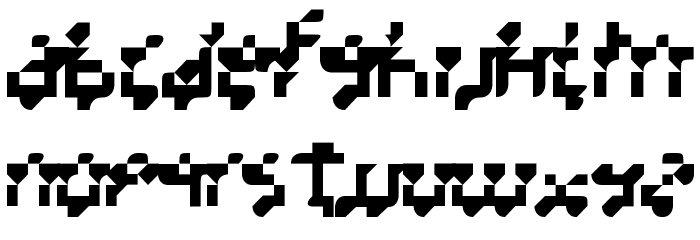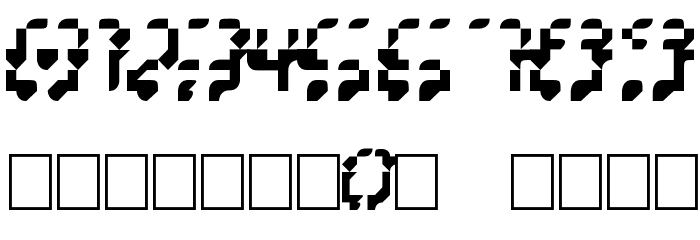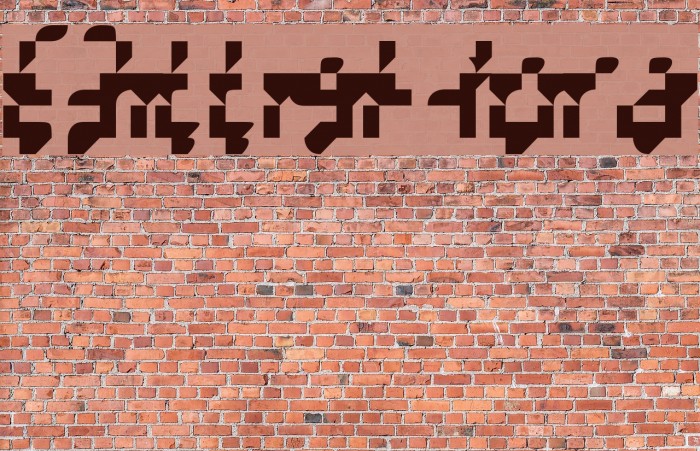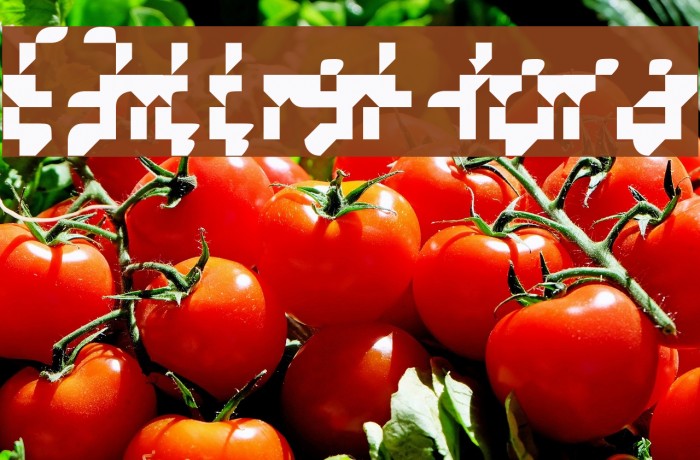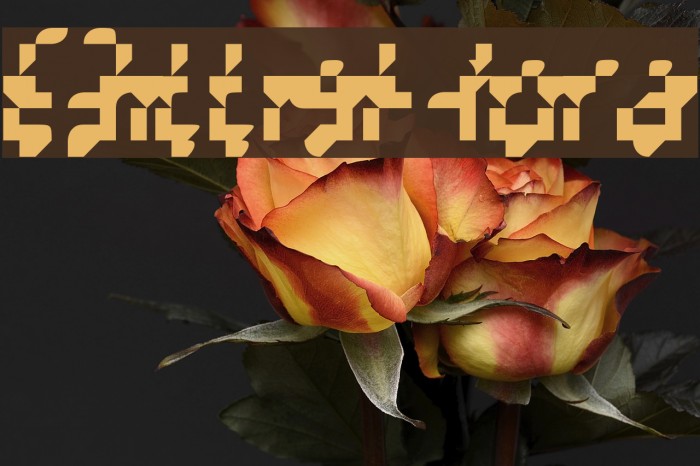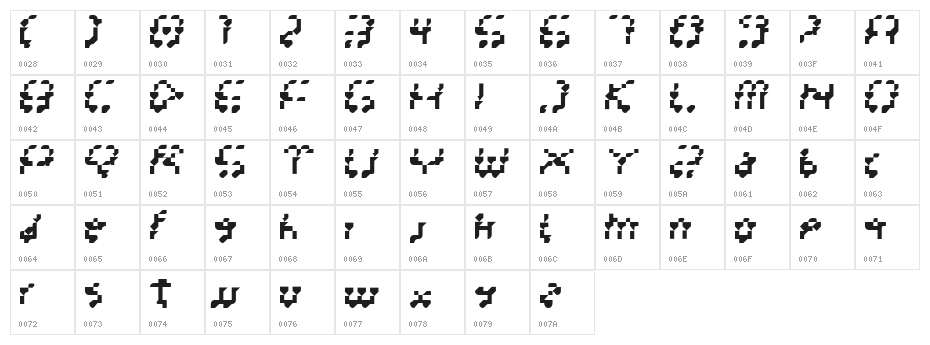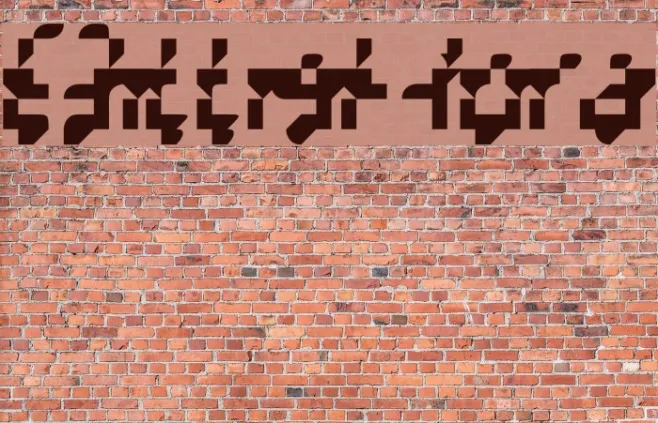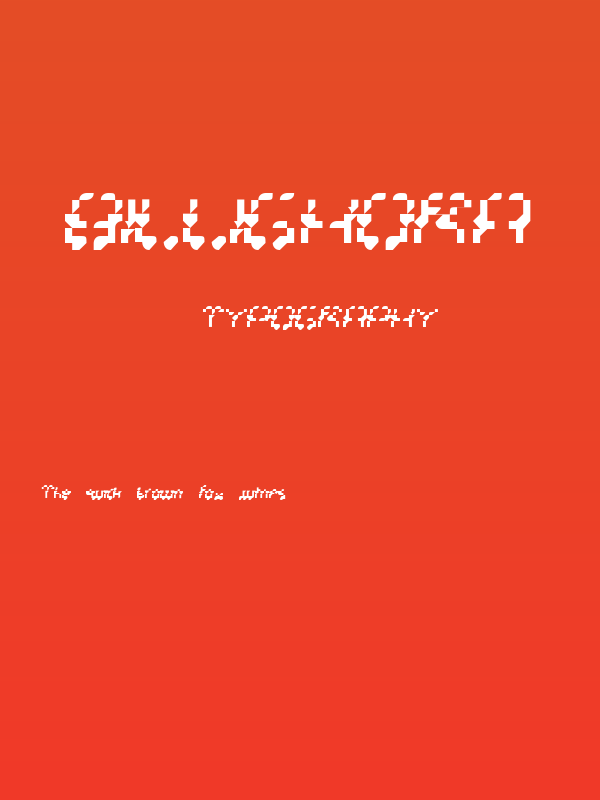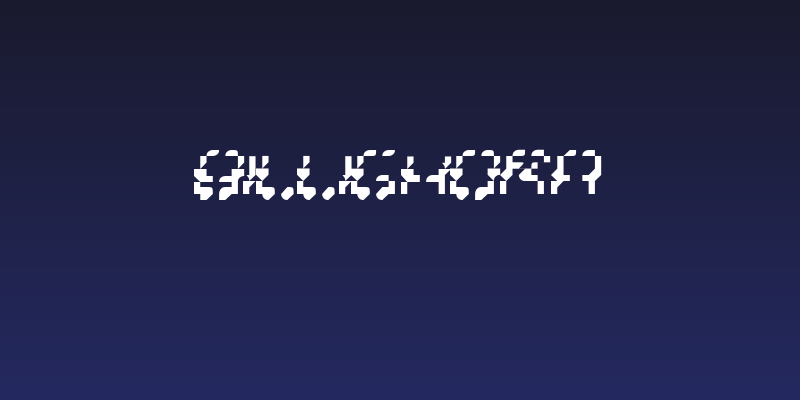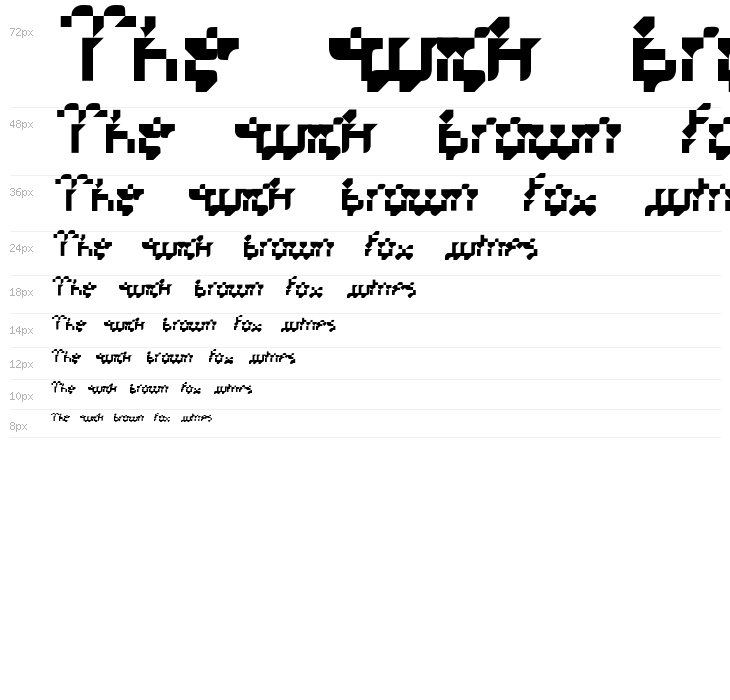
BilligHora Font
This font exhibits a highly decorative and abstract style, characterized by its fragmented and pixelated appearance. Each character is composed of disjointed segments that create a unique visual effect, making it stand out as a modern and artistic typeface. The font's design is bold and striking, with a high contrast between the thick and thin elements of each letterform. The uppercase and lowercase letters maintain a consistent style, while the numerals and special characters follow the same fragmented pattern. This font is not suitable for body text due to its complex design but can be effectively used in creative projects where a distinctive and avant-garde look is desired.
A bold, fragmented, and pixelated decorative font with high contrast.
- Proposed Projects: Ideal for artistic posters, album covers, digital art projects, and experimental graphic design.
- Use Case: Logos, Headlines